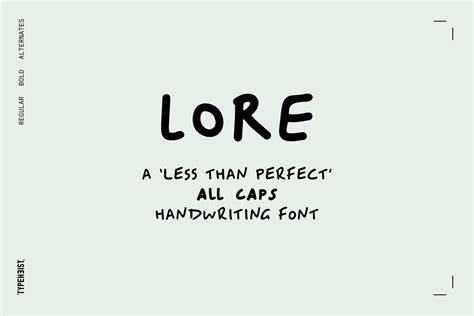
In the world of graphic design and typography, the use of text styles can significantly impact the overall aesthetic and readability of a project. One such style that often grabs attention is the All Caps Font. This font style, where all letters are capitalized, has a unique ability to convey a sense of importance, urgency, or formality. Whether used in headlines, logos, or body text, All Caps Font can add a distinctive touch to any design.
Understanding All Caps Font
All Caps Font refers to the typographic style where all letters are capitalized. This style is often used to create a bold, attention-grabbing effect. The use of All Caps Font can vary widely depending on the context and the design goals. For instance, it can be used in headlines to make them stand out, in logos to create a strong brand identity, or in body text to emphasize certain points.
Historical Context of All Caps Font
The use of All Caps Font dates back to ancient times when writing was primarily done in capital letters. In ancient Roman inscriptions, for example, all letters were capitalized. This style was later adopted in various forms of typography, including early printing presses. Over time, the use of All Caps Font evolved, and it became a stylistic choice rather than a necessity.
Psychological Impact of All Caps Font
The psychological impact of All Caps Font is significant. Capital letters are often perceived as louder and more assertive than lowercase letters. This can make the text appear more urgent or important. However, it’s essential to use All Caps Font judiciously, as overuse can lead to readability issues and fatigue for the reader.
Design Considerations for All Caps Font
When incorporating All Caps Font into a design, several considerations should be kept in mind:
- Readability: Ensure that the text remains readable. All Caps Font can be harder to read, especially in longer passages. Use it sparingly and in contexts where readability is not compromised.
- Contrast: Use contrasting colors and backgrounds to make the text stand out. This can enhance the visual impact of the All Caps Font.
- Font Choice: Select a font that complements the All Caps style. Some fonts are specifically designed for All Caps use and can provide a more polished look.
- Spacing: Adjust the letter spacing (tracking) and line spacing (leading) to improve readability. All Caps Font often requires more space between letters to avoid a cramped appearance.
Common Uses of All Caps Font
All Caps Font is versatile and can be used in various contexts. Some of the most common uses include:
- Headlines and Titles: All Caps Font is often used in headlines and titles to make them stand out and grab attention.
- Logos and Branding: Many logos and brand names use All Caps Font to create a strong, memorable identity.
- Signage and Advertisements: All Caps Font is commonly used in signage and advertisements to convey a sense of urgency or importance.
- Body Text: In some cases, All Caps Font can be used in body text to emphasize certain points or create a specific tone.
Examples of All Caps Font in Design
To better understand the impact of All Caps Font, let’s look at some examples:
| Context | Example | Effect |
| Headline | THIS IS A HEADLINE | Attention-grabbing, bold |
| Logo | COMPANY NAME | Strong, memorable |
| Signage | EXIT | Urgent, clear |
| Body Text | THIS IS AN IMPORTANT POINT | Emphasized, stands out |
📝 Note: The examples above illustrate the versatility of All Caps Font in different contexts. However, it's crucial to consider the specific needs and goals of your design project when choosing to use All Caps Font.
Best Practices for Using All Caps Font
To effectively use All Caps Font in your designs, follow these best practices:
- Limit Usage: Use All Caps Font sparingly to avoid overwhelming the reader. It’s best to reserve it for key elements like headlines or logos.
- Adjust Spacing: Increase the letter spacing (tracking) to improve readability. All Caps Font can appear cramped if the letters are too close together.
- Choose the Right Font: Select a font that is well-suited for All Caps use. Some fonts are specifically designed to look good in all capital letters.
- Consider Context: Think about the context in which the All Caps Font will be used. Ensure that it aligns with the overall design and messaging of your project.
Challenges and Limitations of All Caps Font
While All Caps Font can be a powerful design tool, it also comes with challenges and limitations:
- Readability Issues: All Caps Font can be harder to read, especially in longer passages. This can lead to reader fatigue and decreased comprehension.
- Overuse: Using All Caps Font too frequently can diminish its impact. It’s important to use it judiciously to maintain its effectiveness.
- Perception of Shouting: In digital communication, All Caps Font is often perceived as shouting. This can be off-putting to readers and should be avoided in informal or casual contexts.
All Caps Font in Biographical Literature
In biographical literature, All Caps Font can be used to create a sense of importance and significance. It can be used to emphasize certain words or phrases and create a unique visual and auditory experience. However, it’s important to use All Caps Font